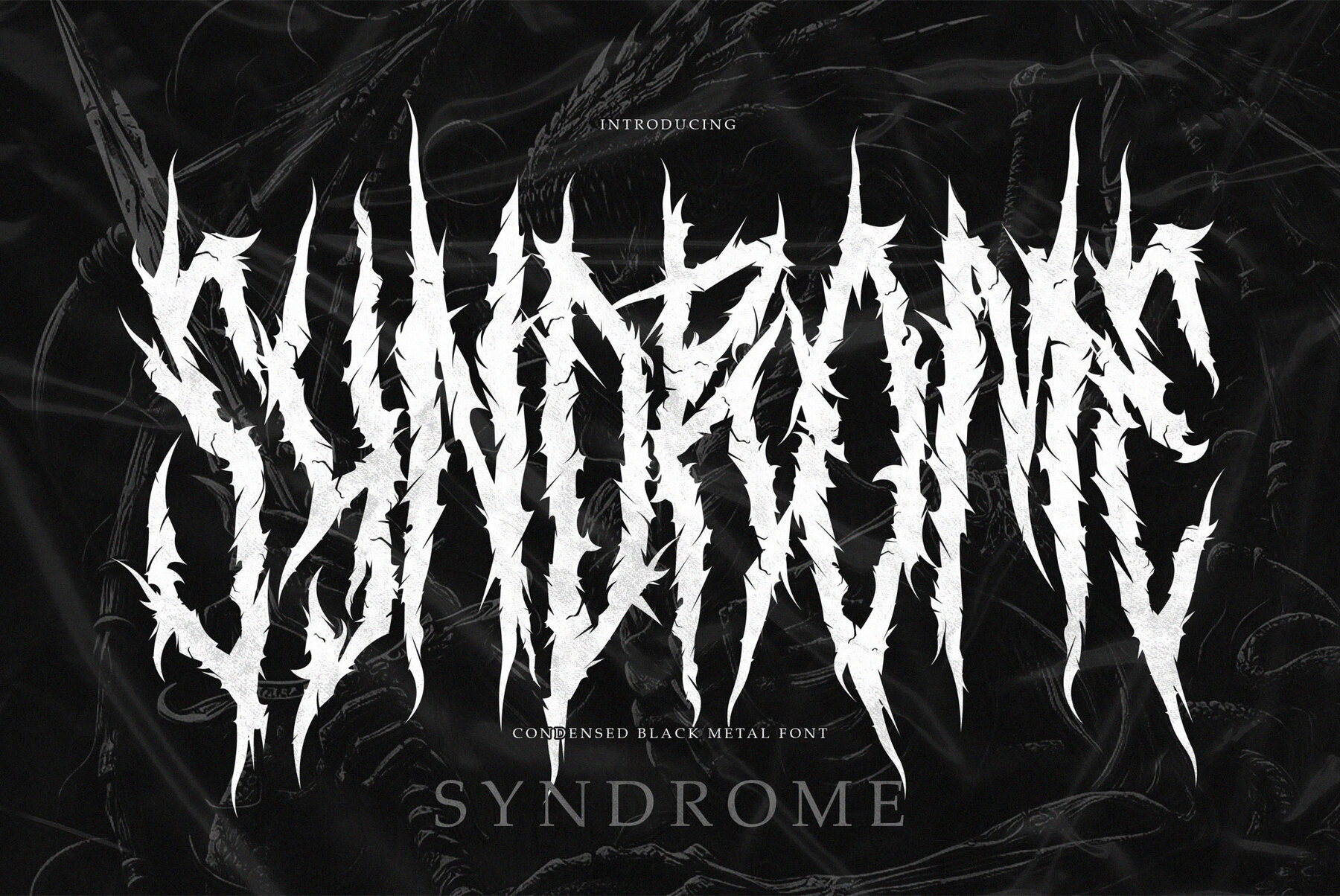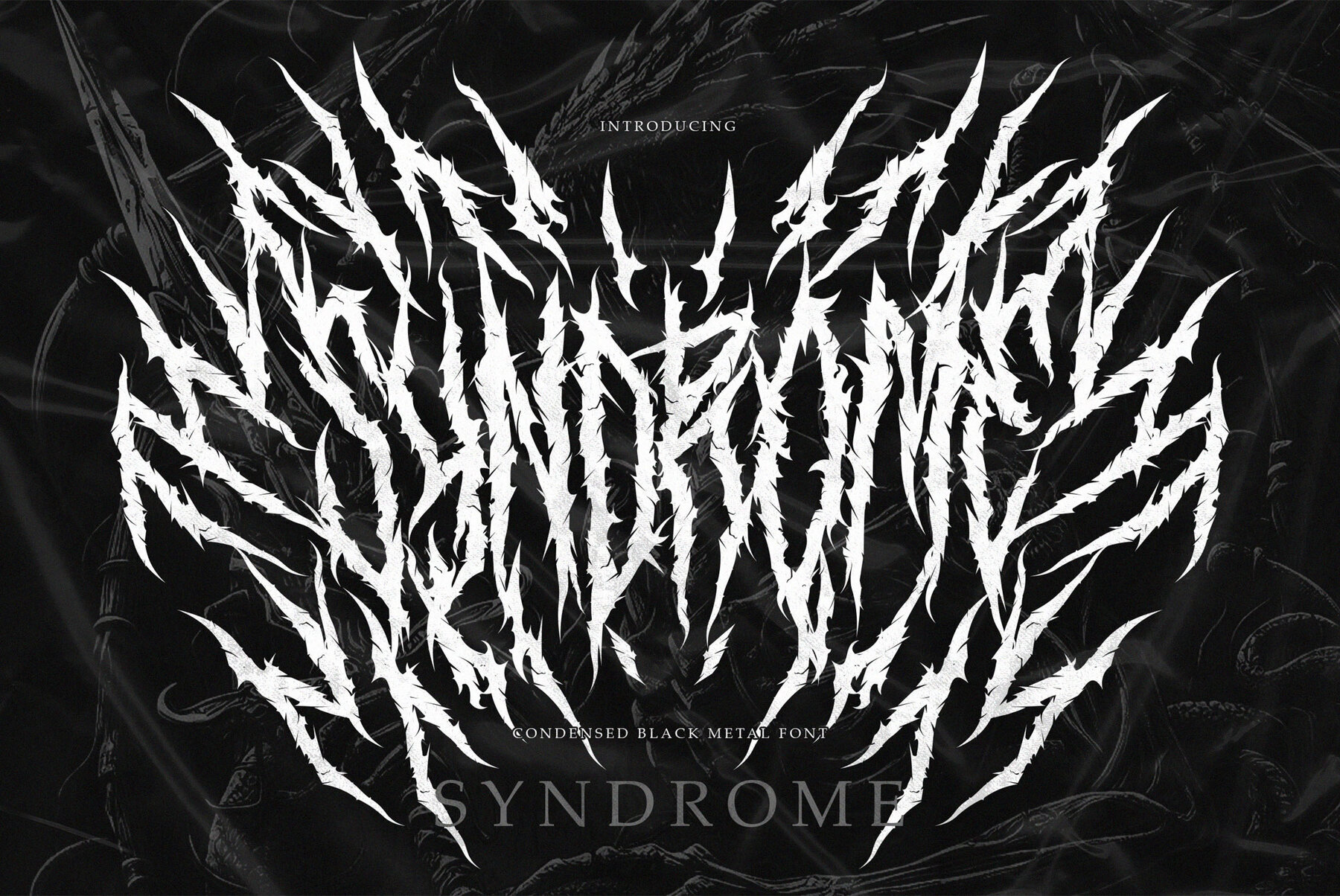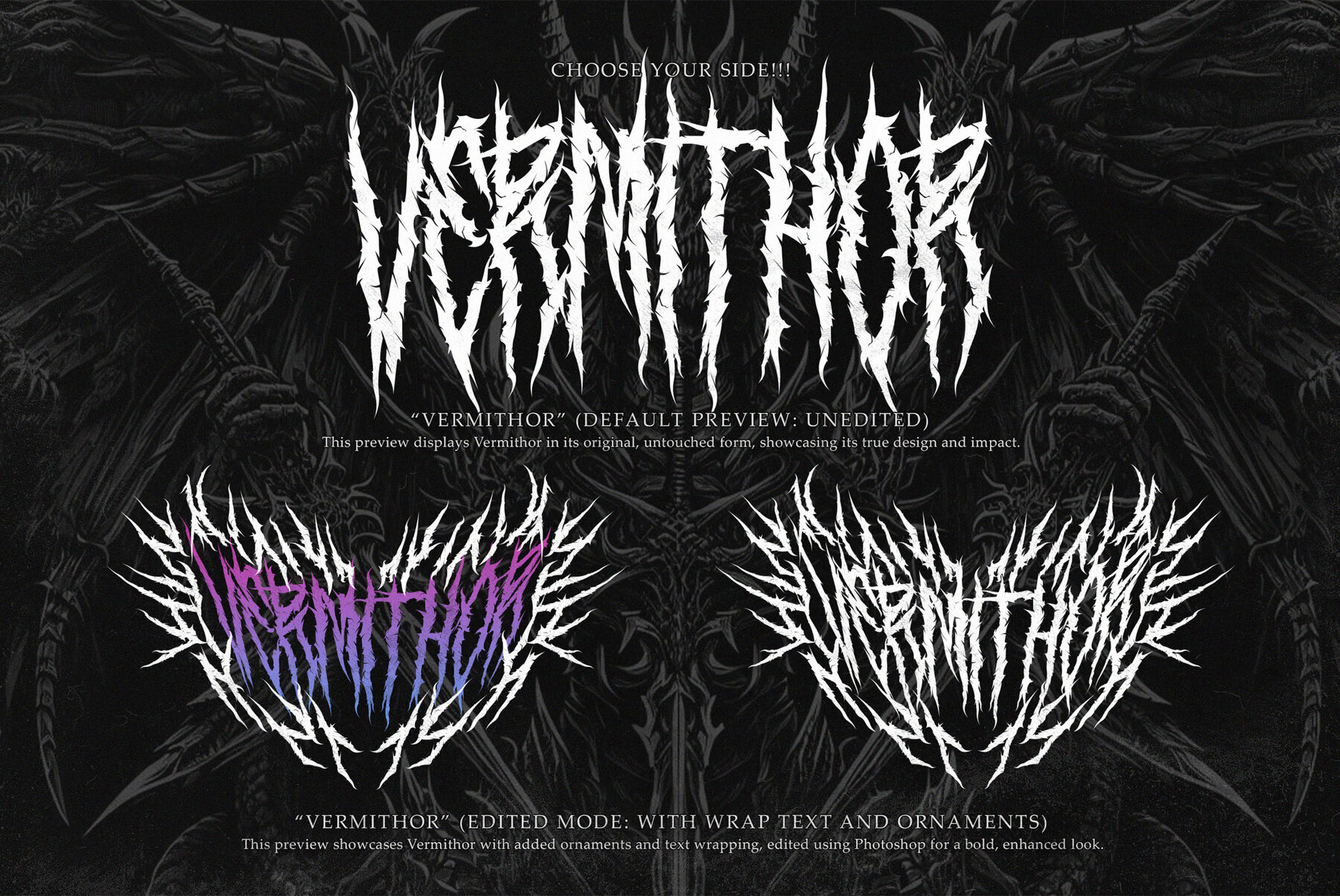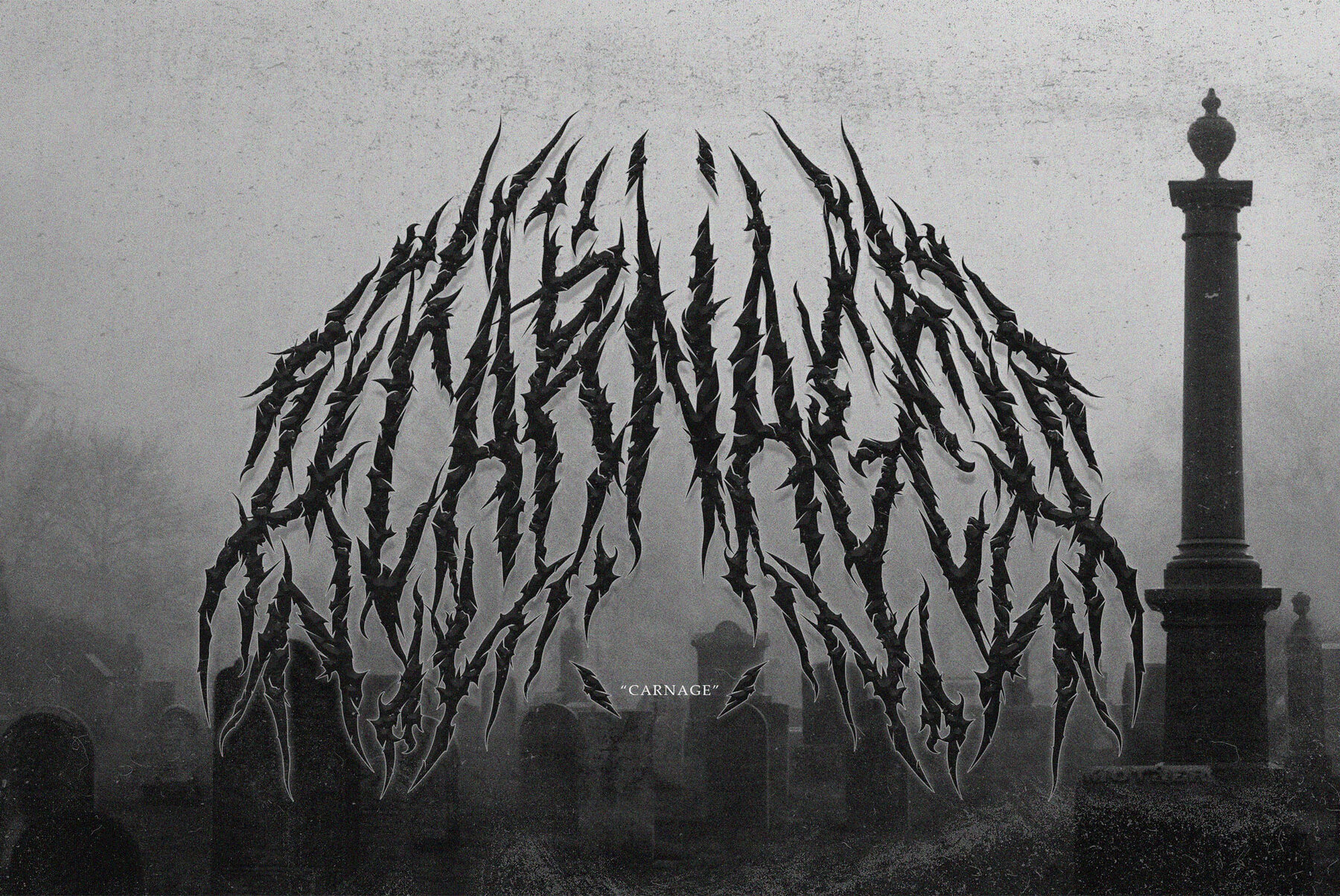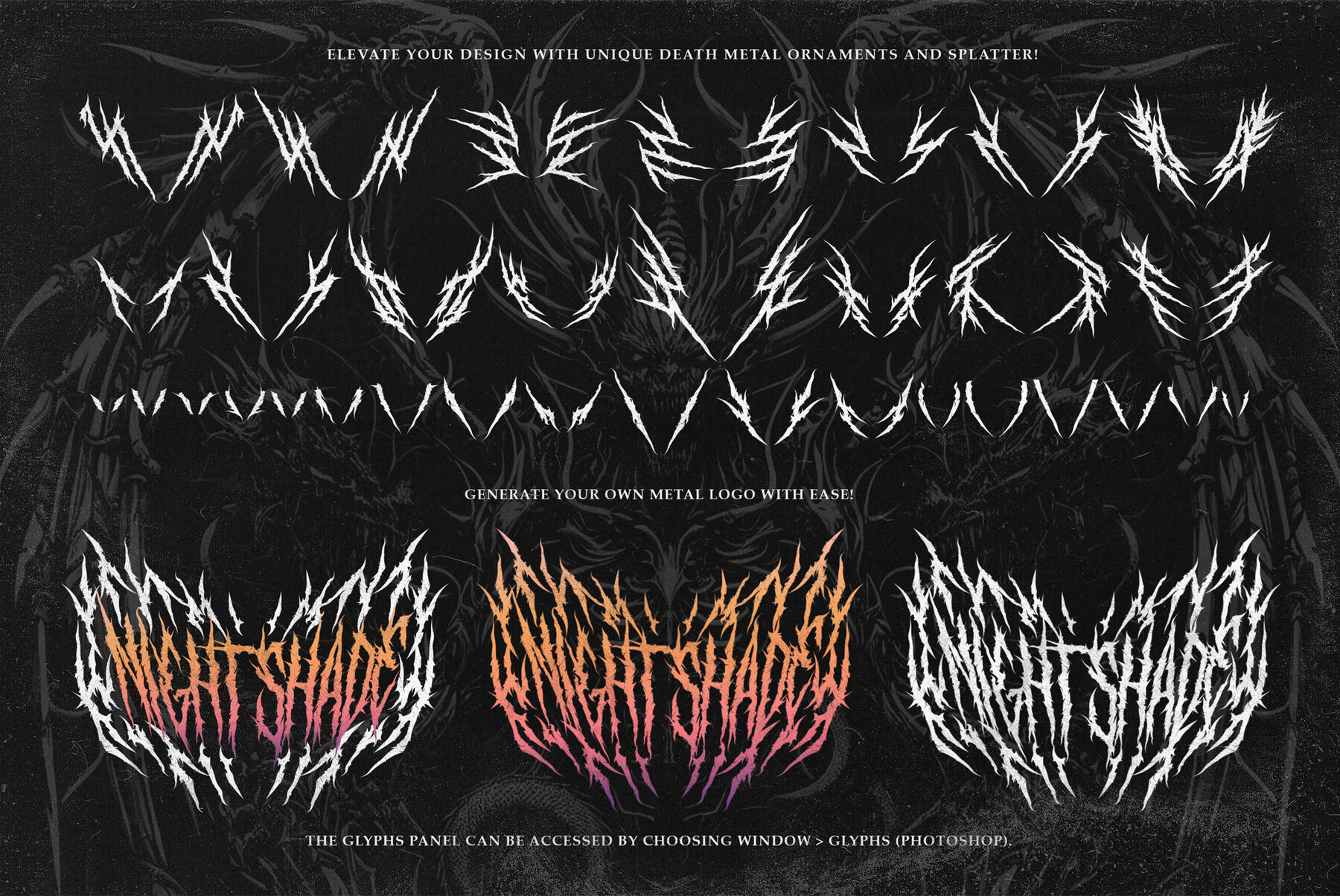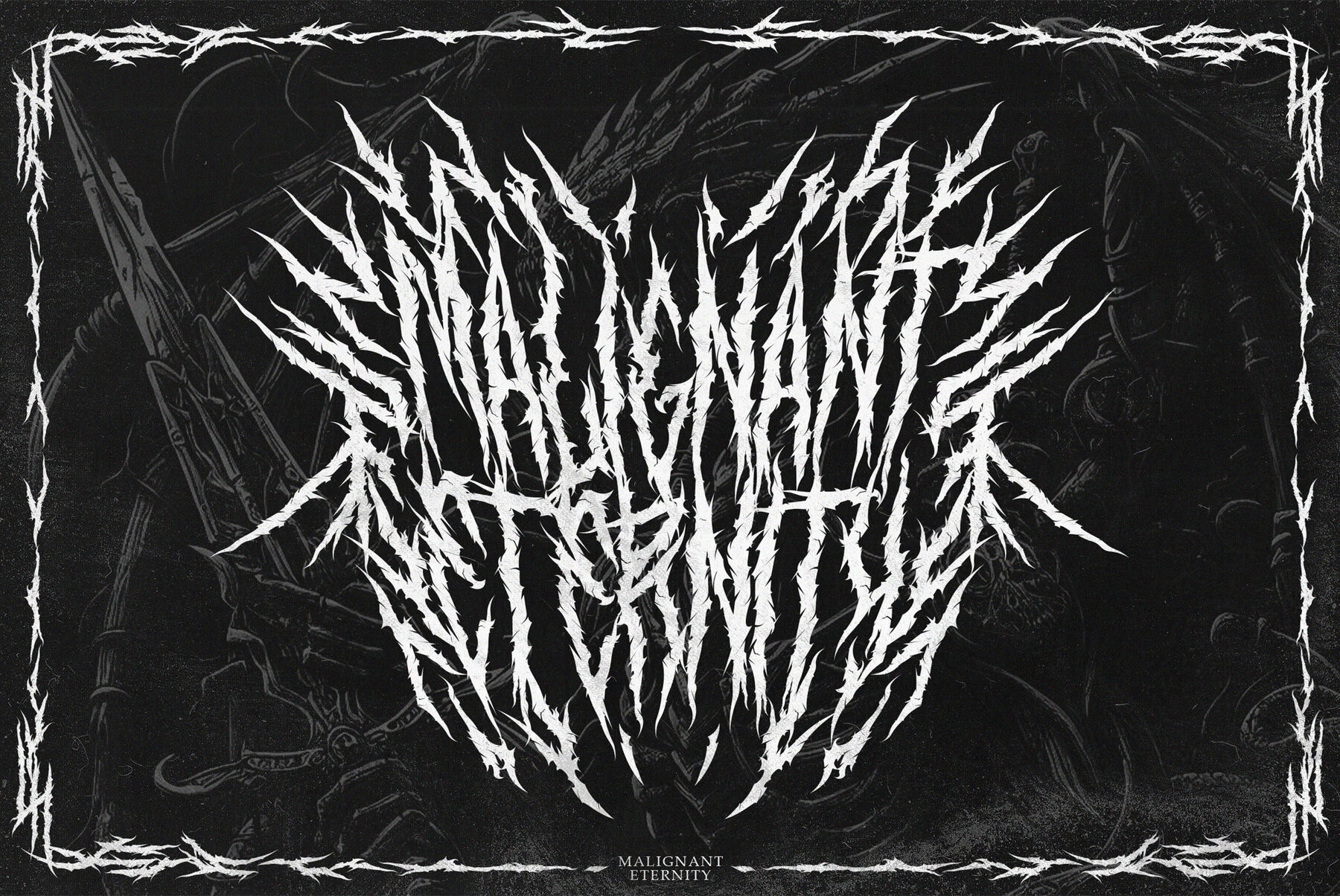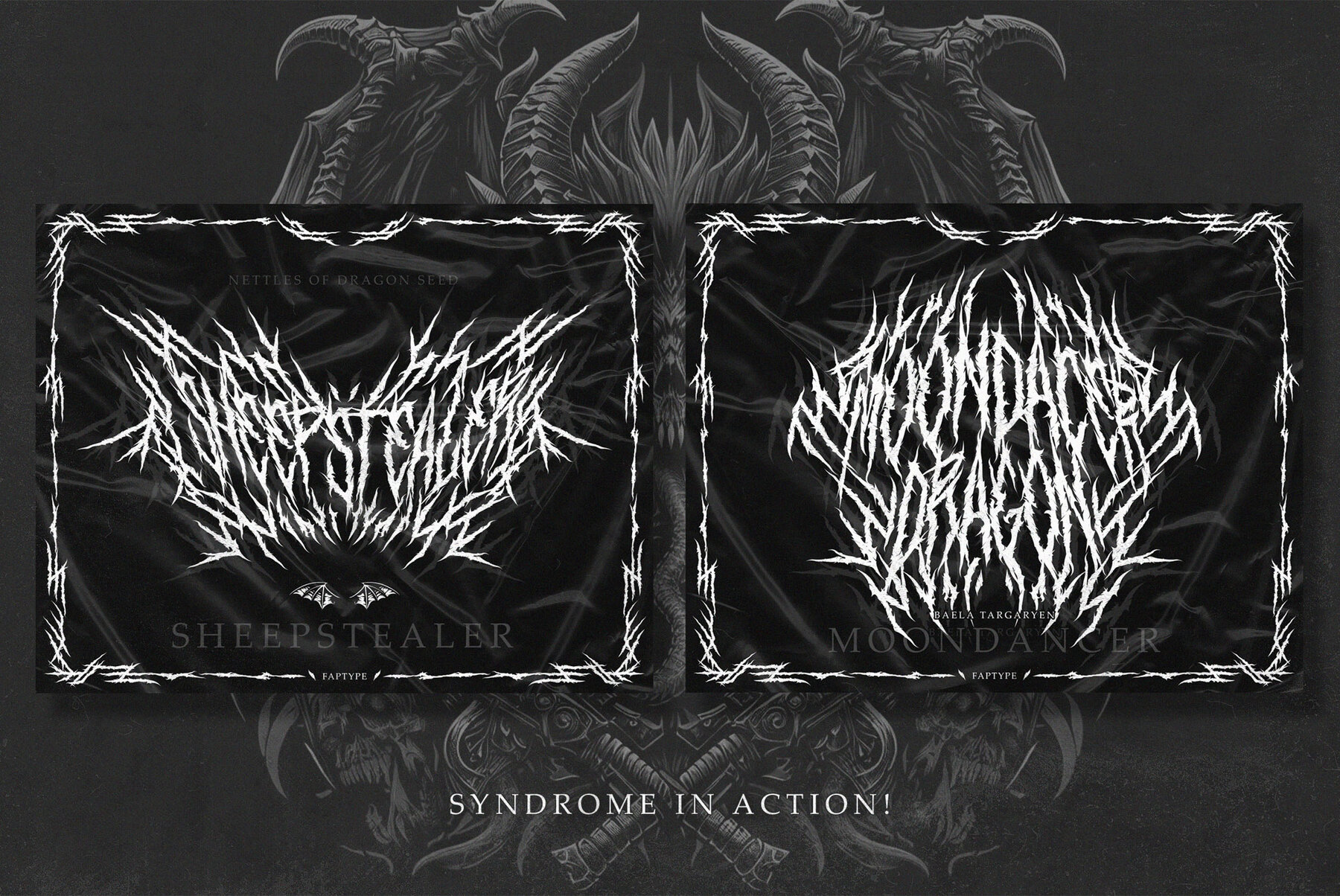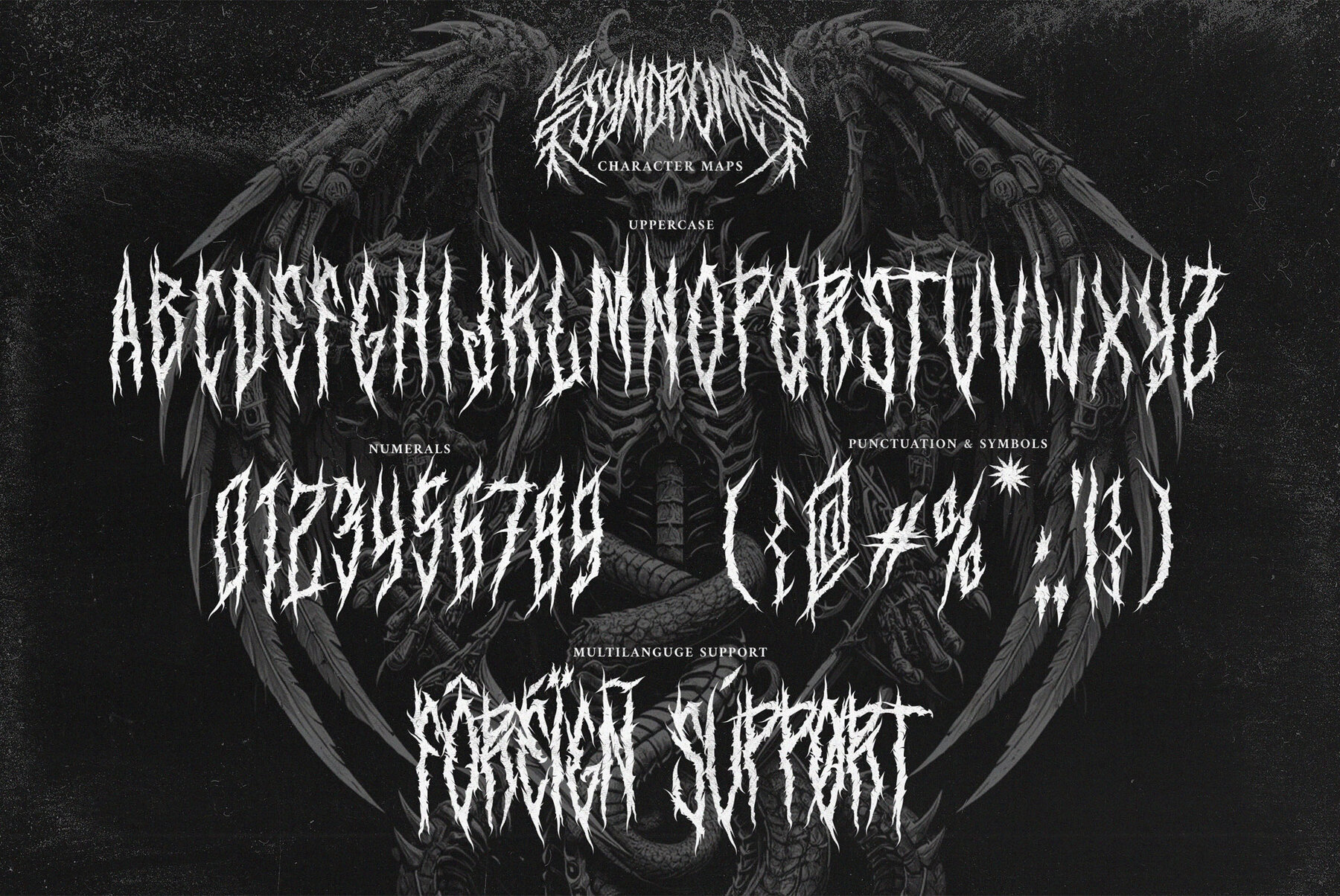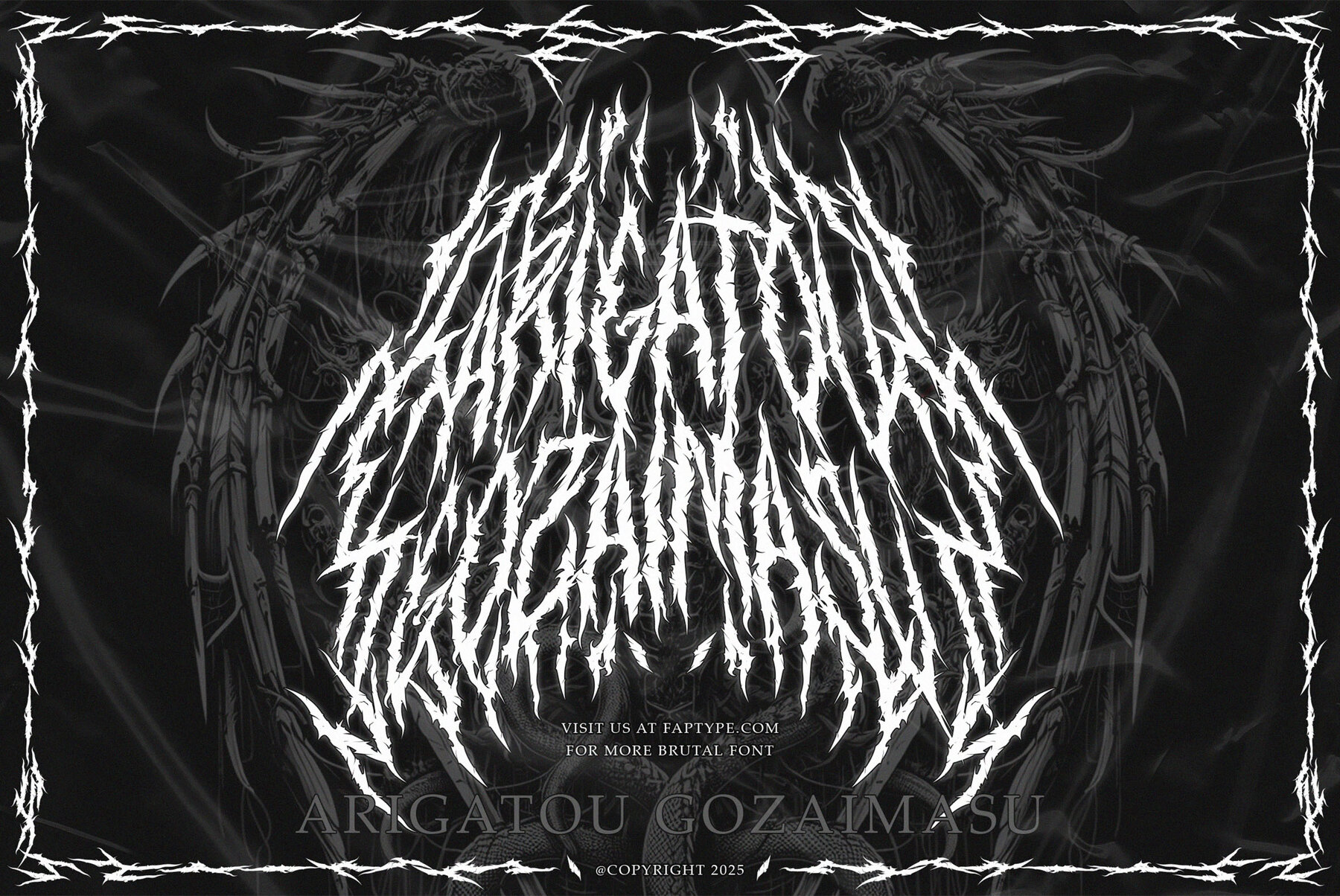
Syndrome Font
Syndrome Regular
Syndrome is a condensed black metal font forged for design enthusiasts who embrace the extreme. With its razor-sharp aesthetic, Syndrome captures the chaotic energy associated with black metal, death metal, and the underground extreme music culture. Its narrow, aggressive letterforms cut through the void like blades, each stroke carrying a raw intensity reminiscent of cryptic sigils, ancient grimoires, and the unholy soundscapes of blackened music.
Perfect for crafting band logos, album covers, gig posters, clothing lines, or extreme horror visuals, Syndrome offers a fusion of legibility and brutality. The font's condensed structure is designed for maximum impact, balancing a ferocious high-contrast aesthetic while fitting seamlessly into tight spaces. Whether you're harnessing chaos, mysticism, or raw underground power, Syndrome serves as a visual weapon for your dark creations.
Features of Syndrome include a full set of uppercase letters, numbers, punctuation, multilingual language support, PUA encoded characters, OpenType features, over 328 total glyphs, and 98 death metal ornaments and splatter elements. This typeface demands attention, inviting you to embrace darkness and elevate your designs with its raw power.